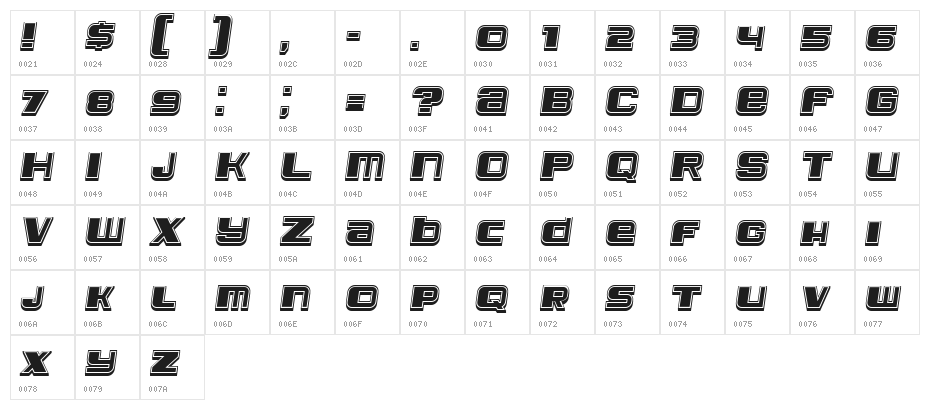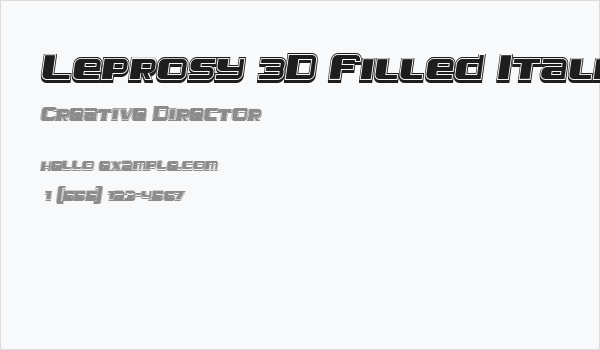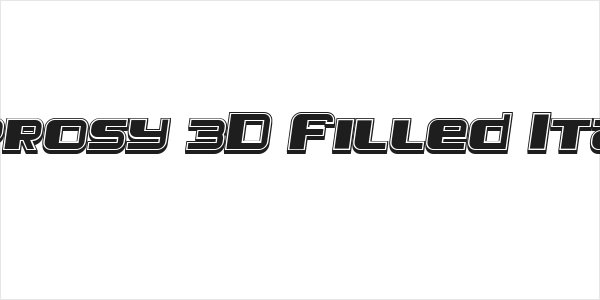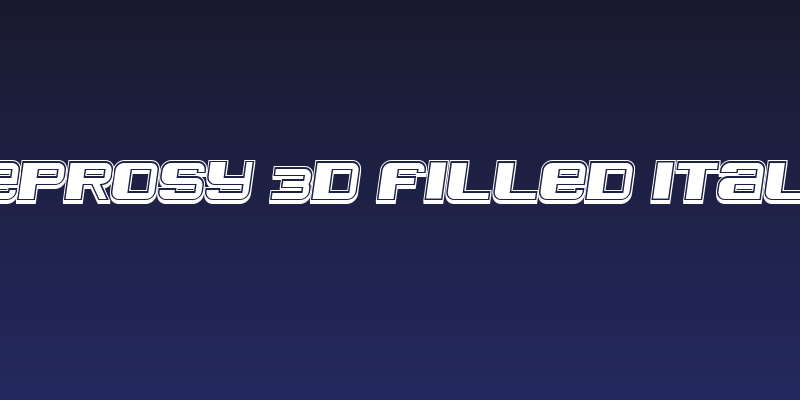
Leprosy 3D Filled Italic Font
Leprosy 3D Filled Italic Description
This font features a bold, three-dimensional appearance with a filled, italicized style. The characters are outlined with a thick black border, giving them a striking, impactful look. The design incorporates a futuristic and dynamic aesthetic, making it stand out with its unique 3D effect. The uppercase and lowercase letters maintain a consistent style, with sharp angles and a slightly condensed form. Numbers and special characters follow the same design principles, ensuring uniformity across all glyphs. The overall look is modern and eye-catching, suitable for projects that require a bold statement.
| Proposed Projects | Ideal for video game titles, sports branding, posters, and any project needing a futuristic and bold visual impact. |